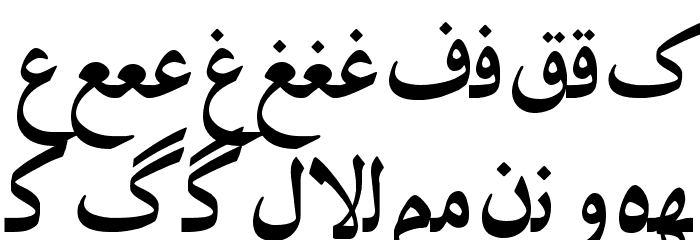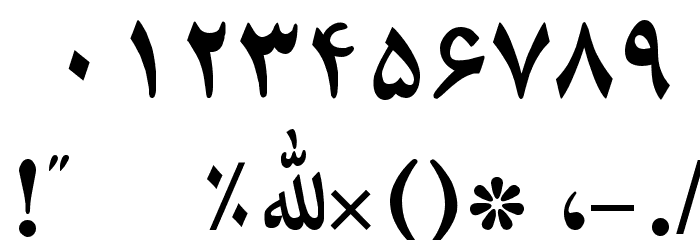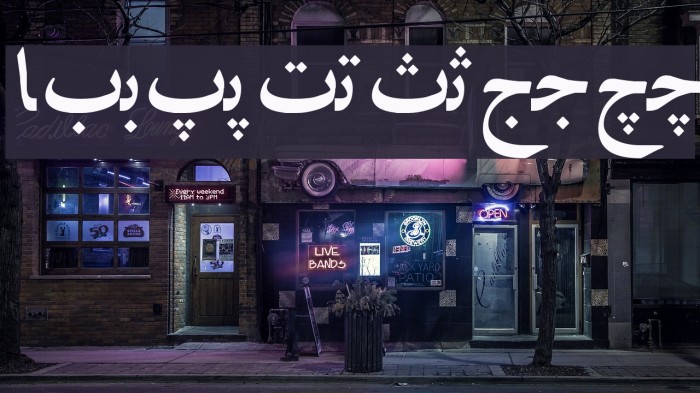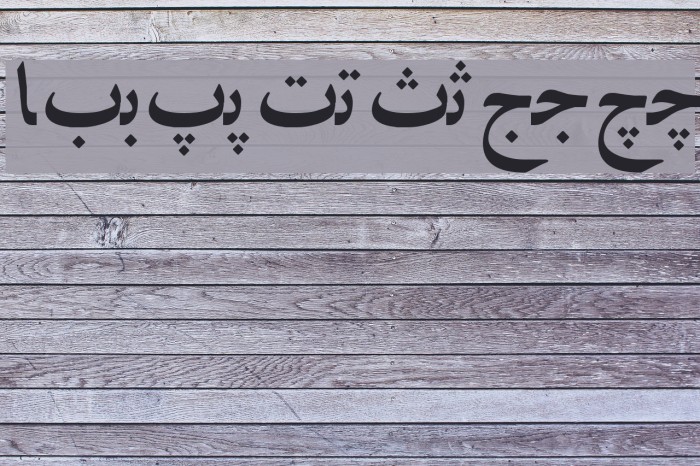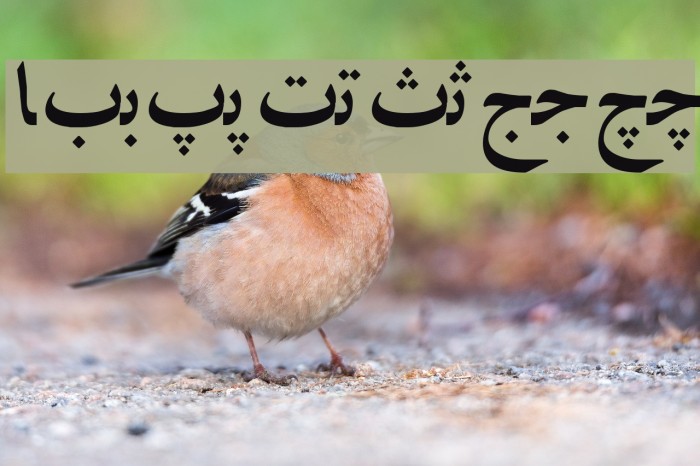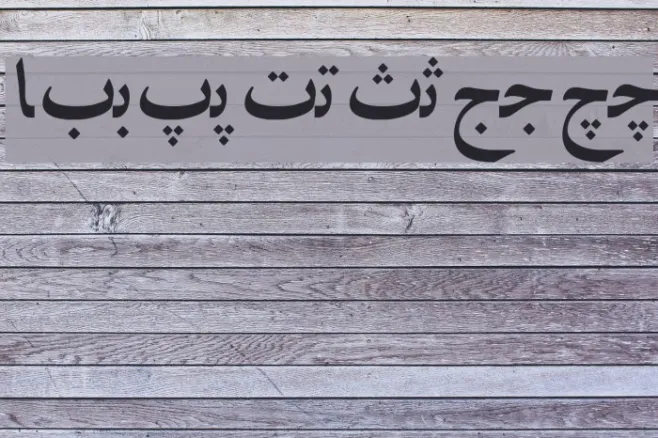
Irnafont_6 Font
This font features a bold and dynamic style with strong, thick strokes that convey a sense of strength and confidence. The characters are well-defined with a slightly condensed width, making it suitable for impactful headlines and titles. The font exhibits a moderate contrast between thick and thin strokes, adding a touch of elegance while maintaining readability. Its unique design elements, such as the distinct curves and angles, give it a modern and contemporary feel. The spacing between characters is normal, ensuring clarity and legibility even at smaller sizes. This font is versatile, making it ideal for various design projects that require a bold and assertive typeface.
A bold, modern font with strong strokes and moderate contrast, perfect for impactful headlines.